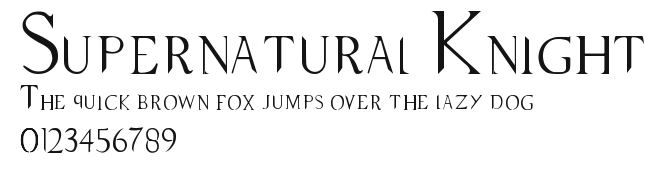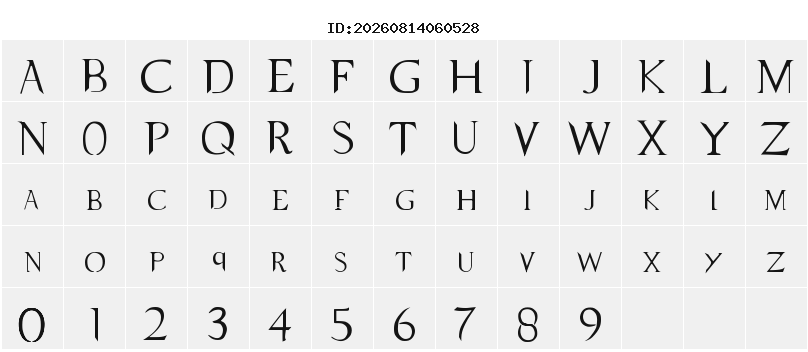
Supernatural Knight Preview
• Font Name: Supernatural Knight
• Full Font Name: Supernatural Knight
About Supernatural Knight.ttf
Supernatural Knight.ttf is a modern, elegant sans-serif font designed for ultimate readability and visual harmony. Perfect for branding, headlines, web design, and print materials.